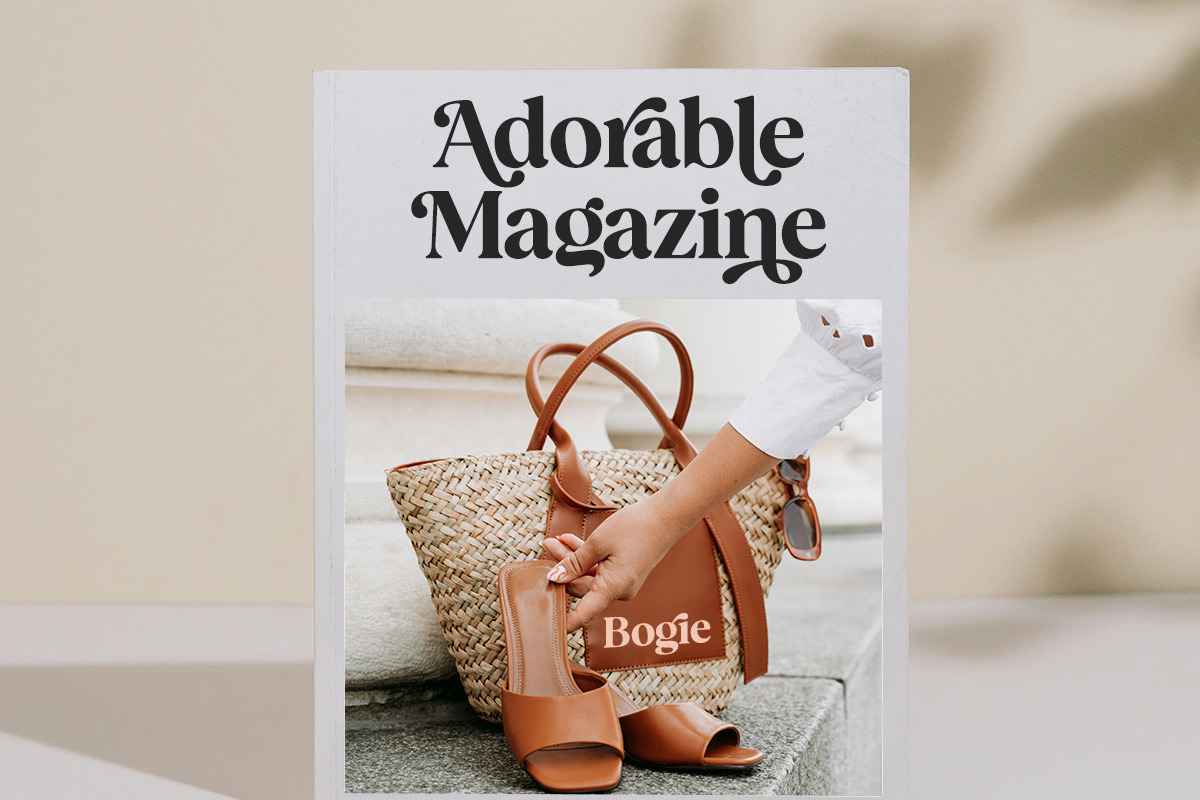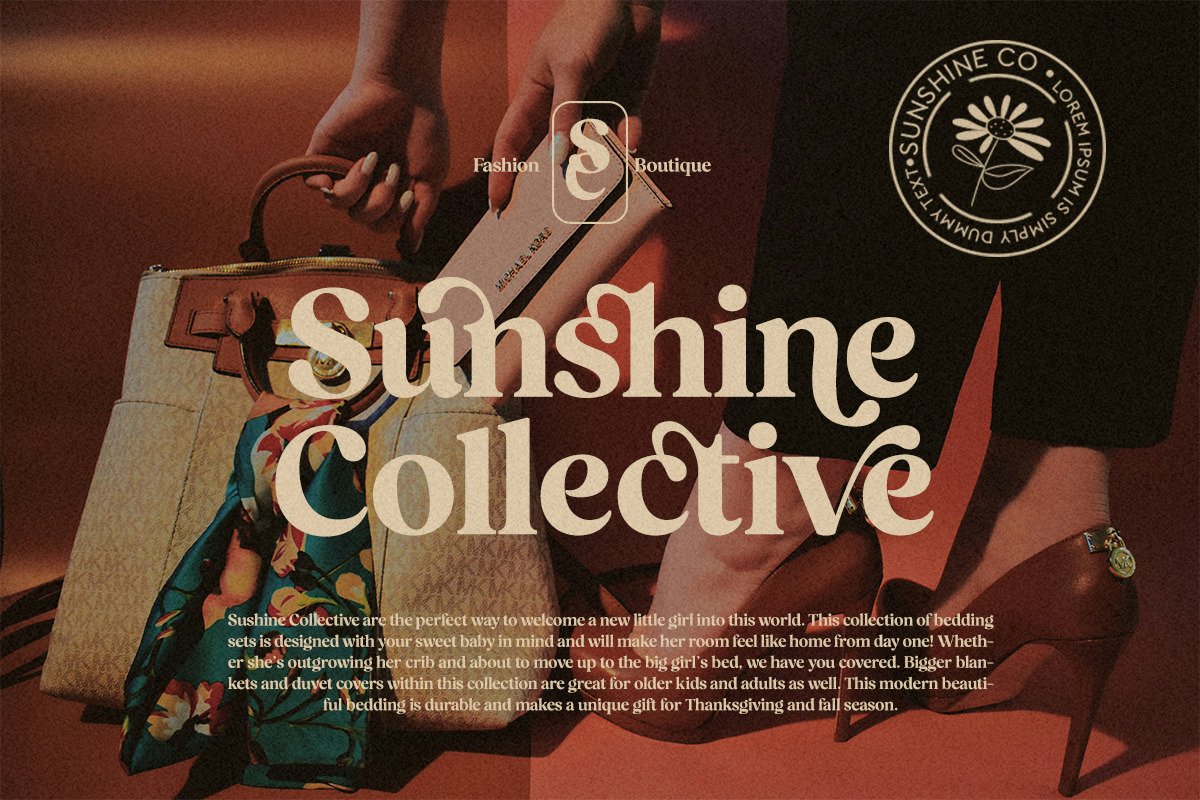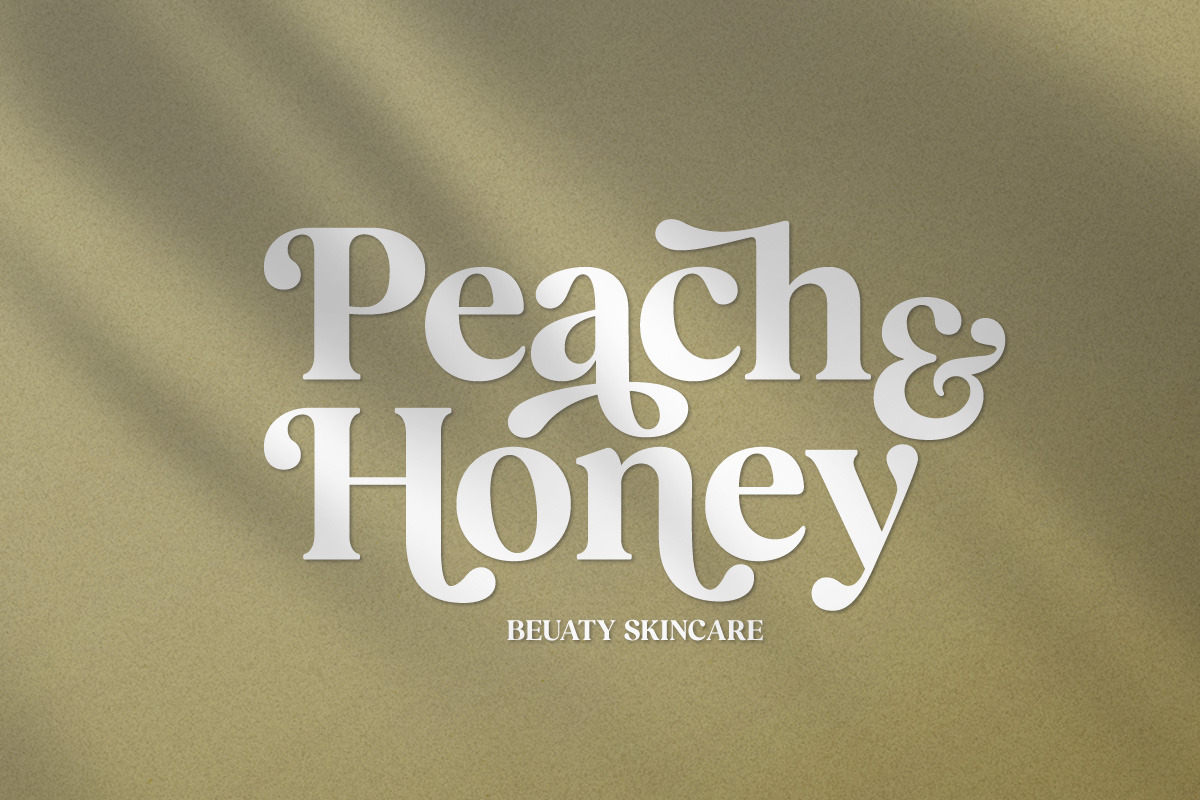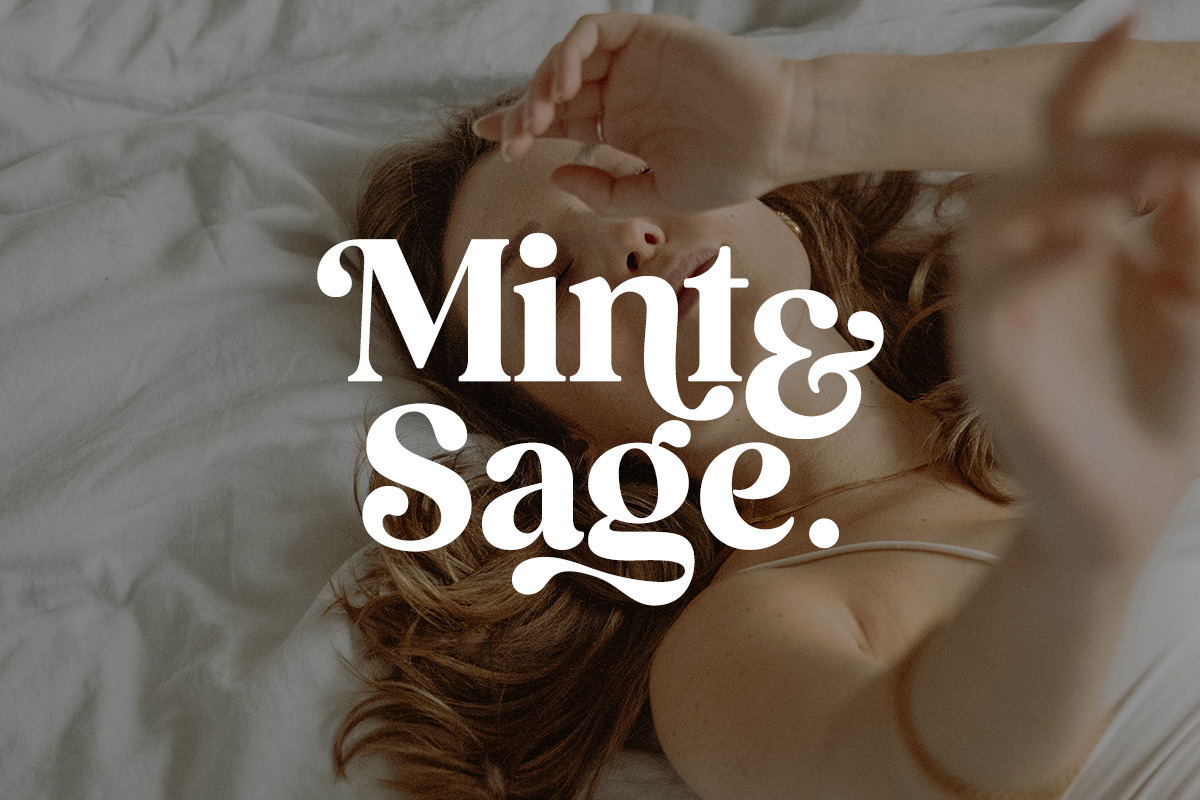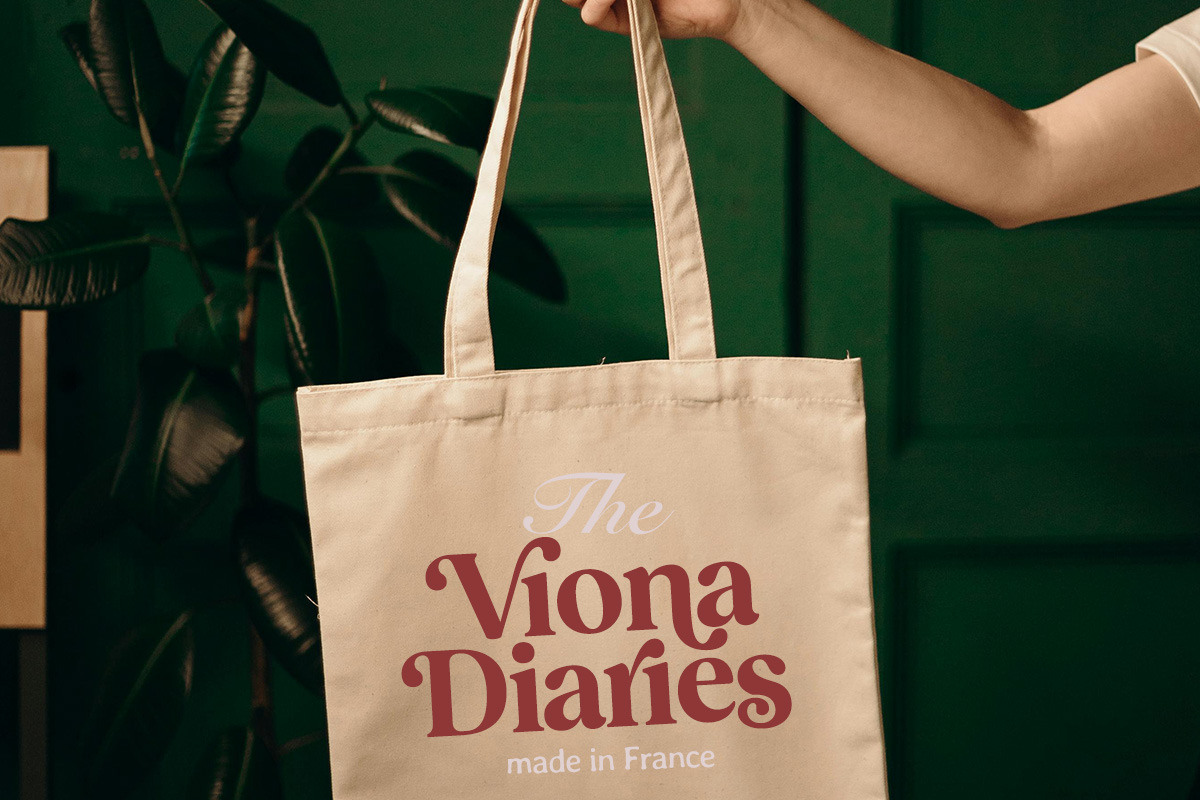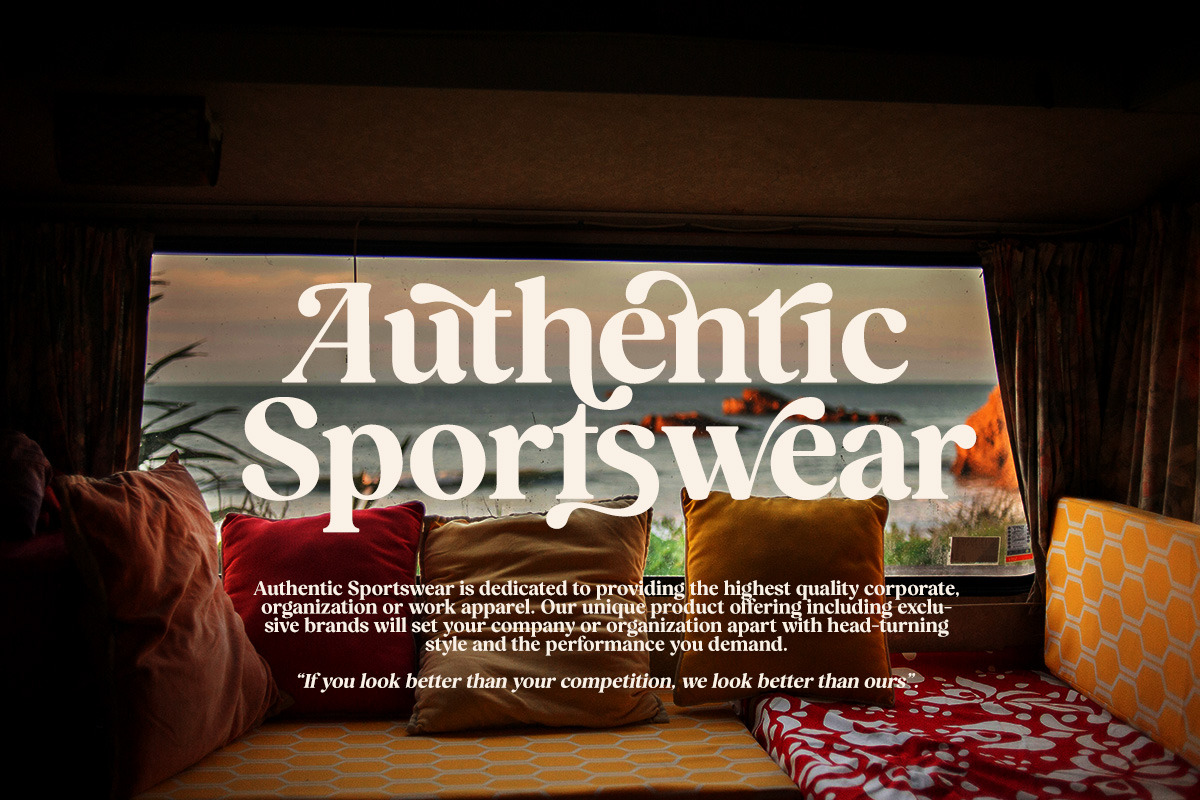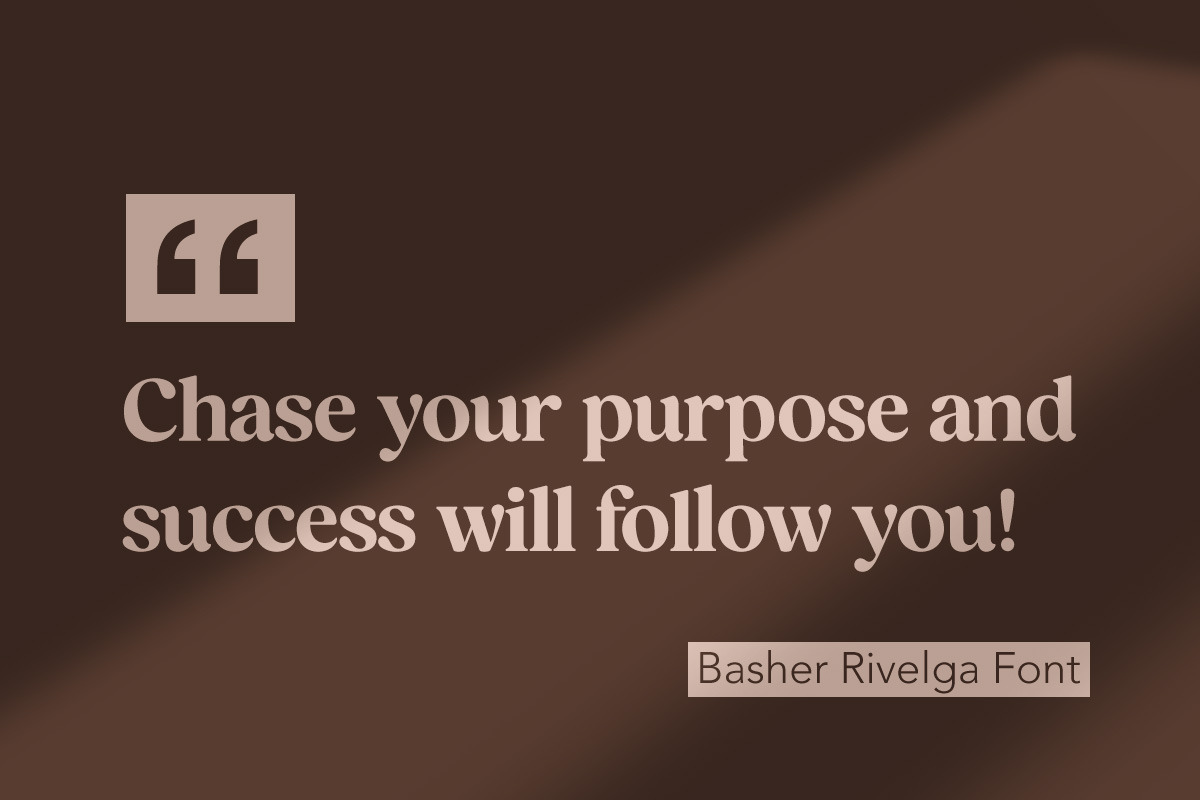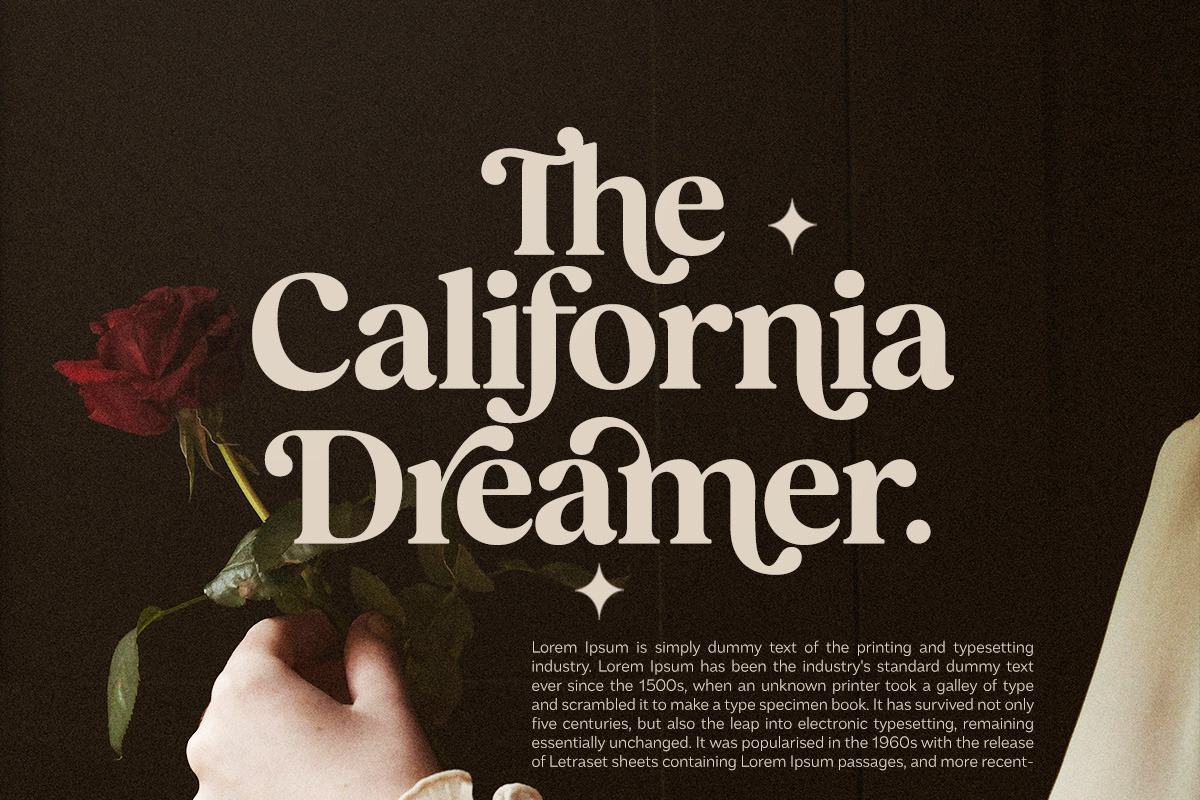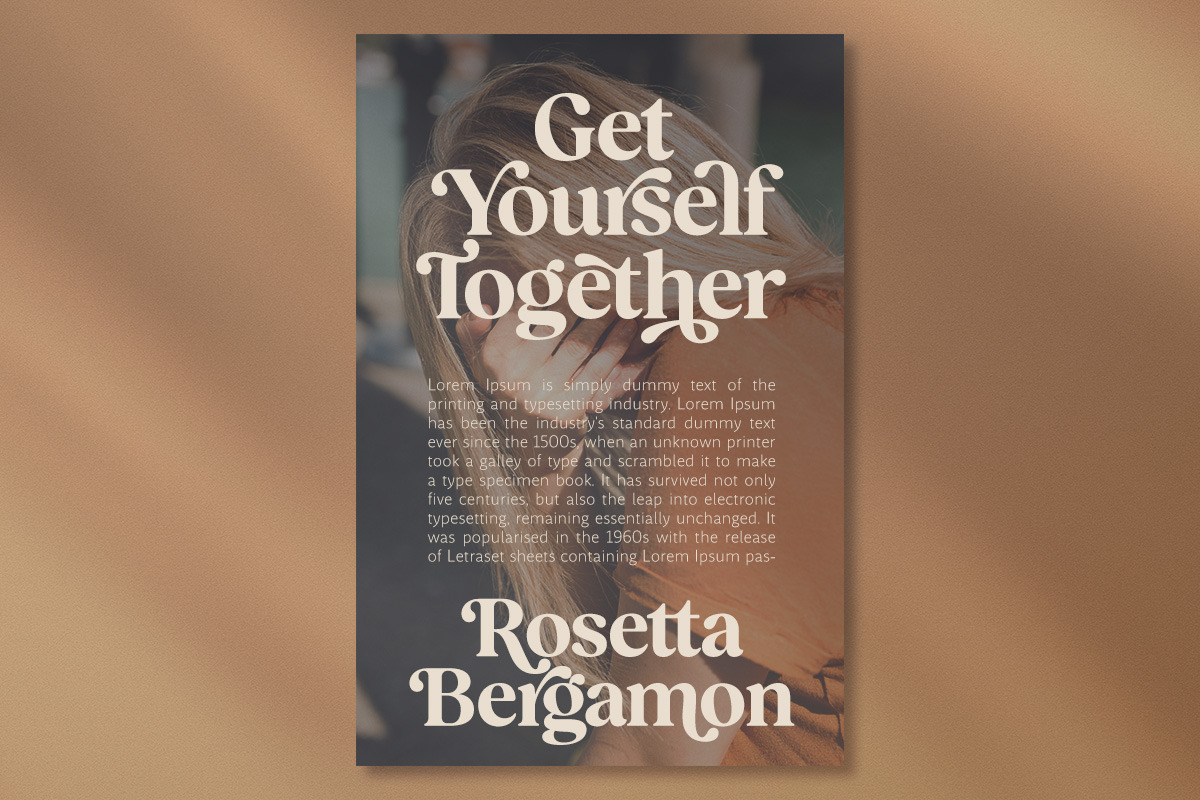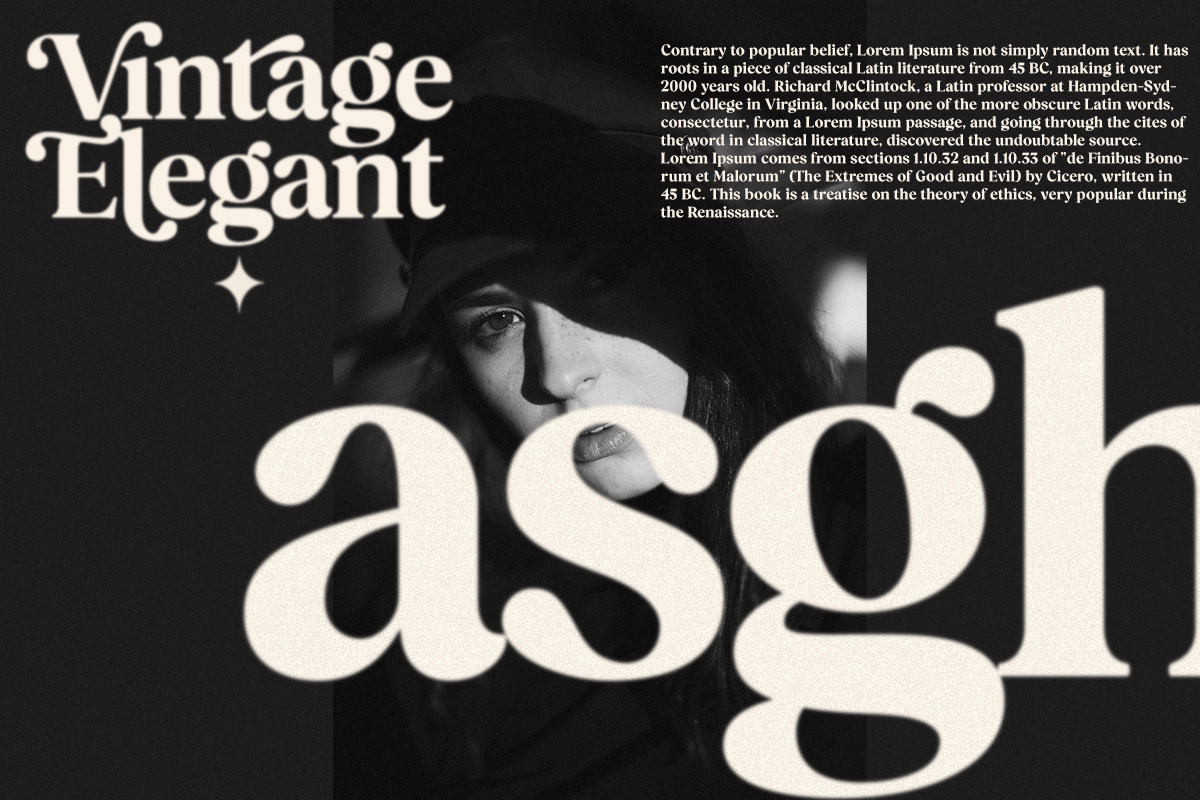
Basher Rivelga
Basher Rivelga is a harmonious and stylish contemporary serif typeface with a classic feel. Includes 2 Fonts, upright and italic, swollen stems, and italics, growing along with the font character. OpenType features allow the application of typography such as ligatures and support for multiple languages.
Basher Rivelga also comes with two versions of Variable Regular and Italic to make it easier for designers to explore and refine beautiful designs, revealing many visual nuances and hidden secrets.
Basher Rivelga is a perfect choice for your various design projects such as editorial design, headlines, branding projects, Logo design, packaging, magazine titles, advertisements, short or long texts, web design, and more.